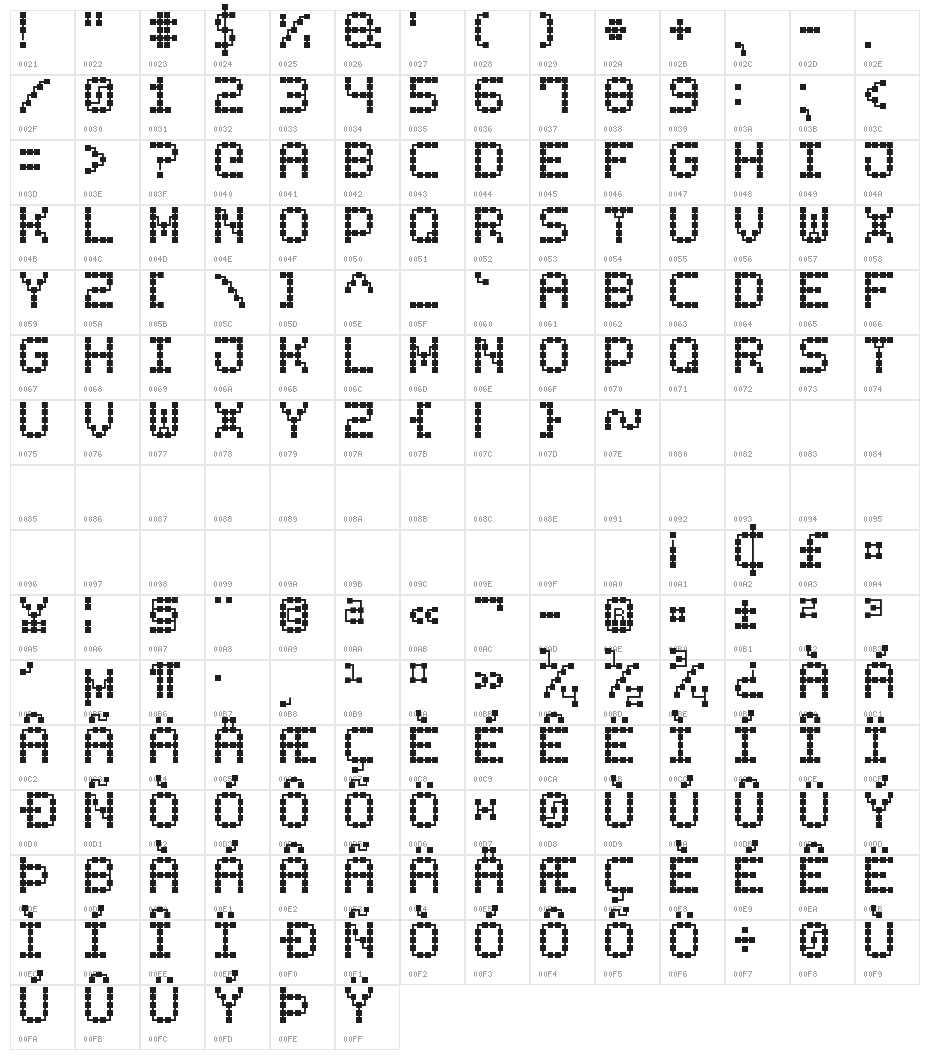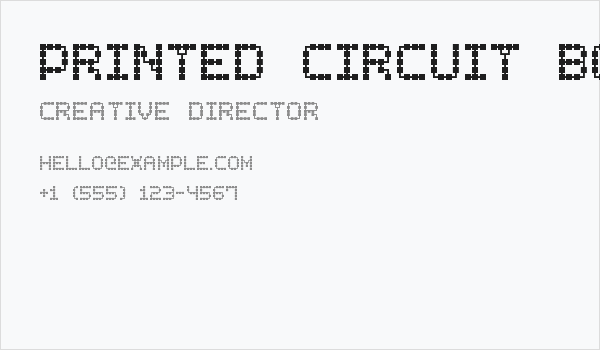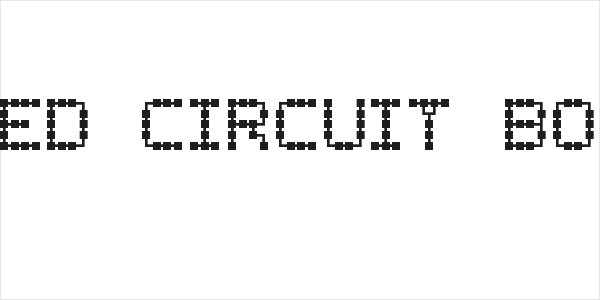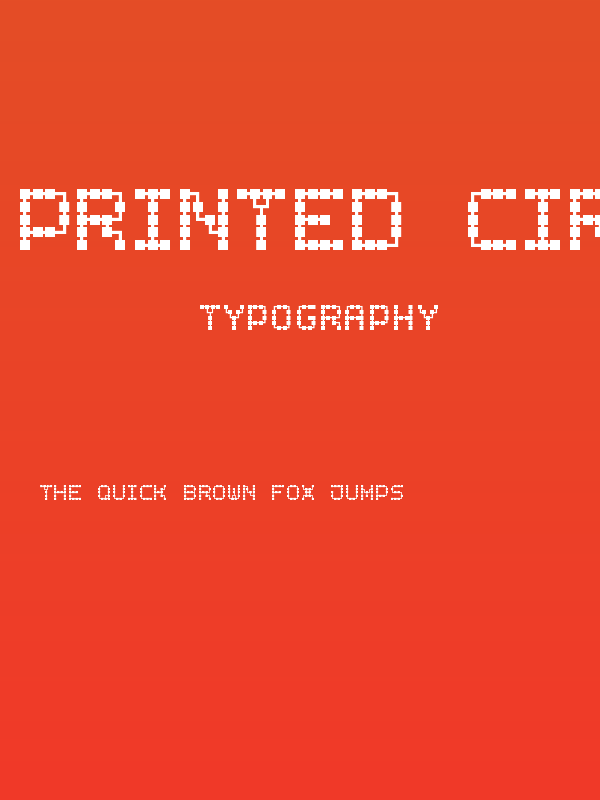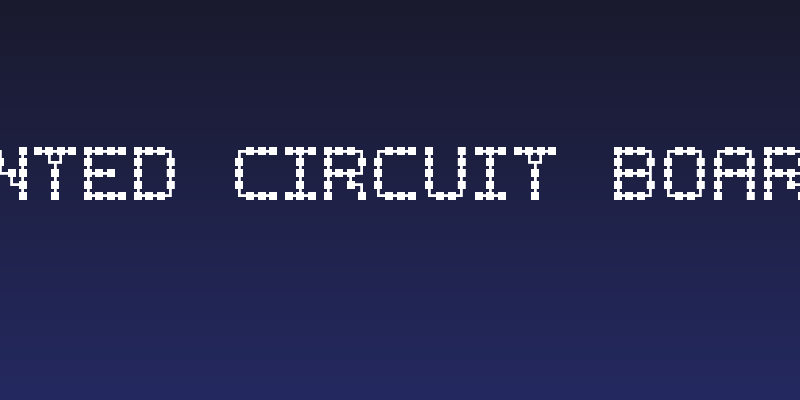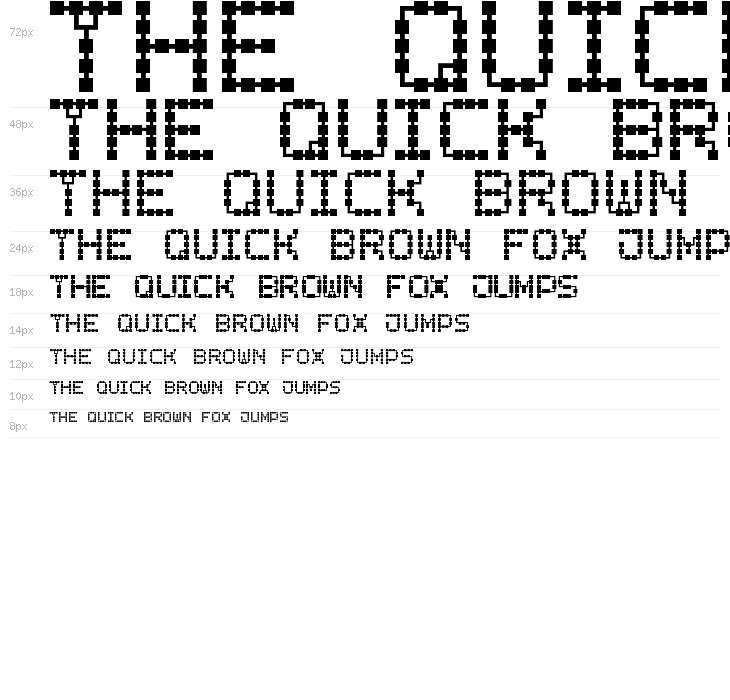
Printed Circuit Board-7 Font
Printed Circuit Board-7 Description
This font features a distinctive pixelated design, reminiscent of digital displays and retro video games. Each character is composed of small square blocks, creating a grid-like appearance that is both modern and nostalgic. The uppercase and lowercase letters maintain a consistent height, contributing to a uniform and structured look. Numbers and special characters follow the same pixelated style, ensuring a cohesive visual experience. The font's geometric nature makes it ideal for projects that require a technological or futuristic aesthetic.
| Proposed Projects | Ideal for video game design, tech-themed posters, digital art, and retro-style branding. |